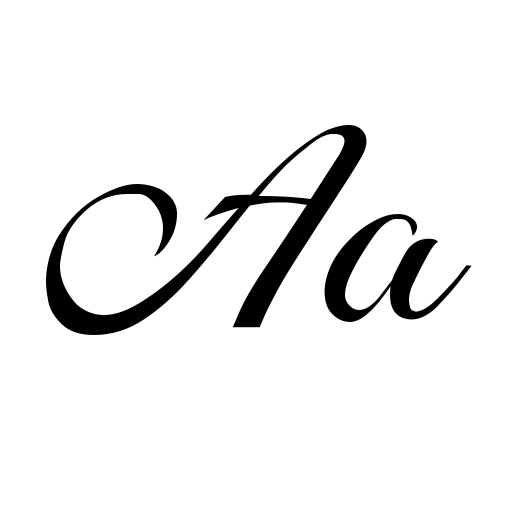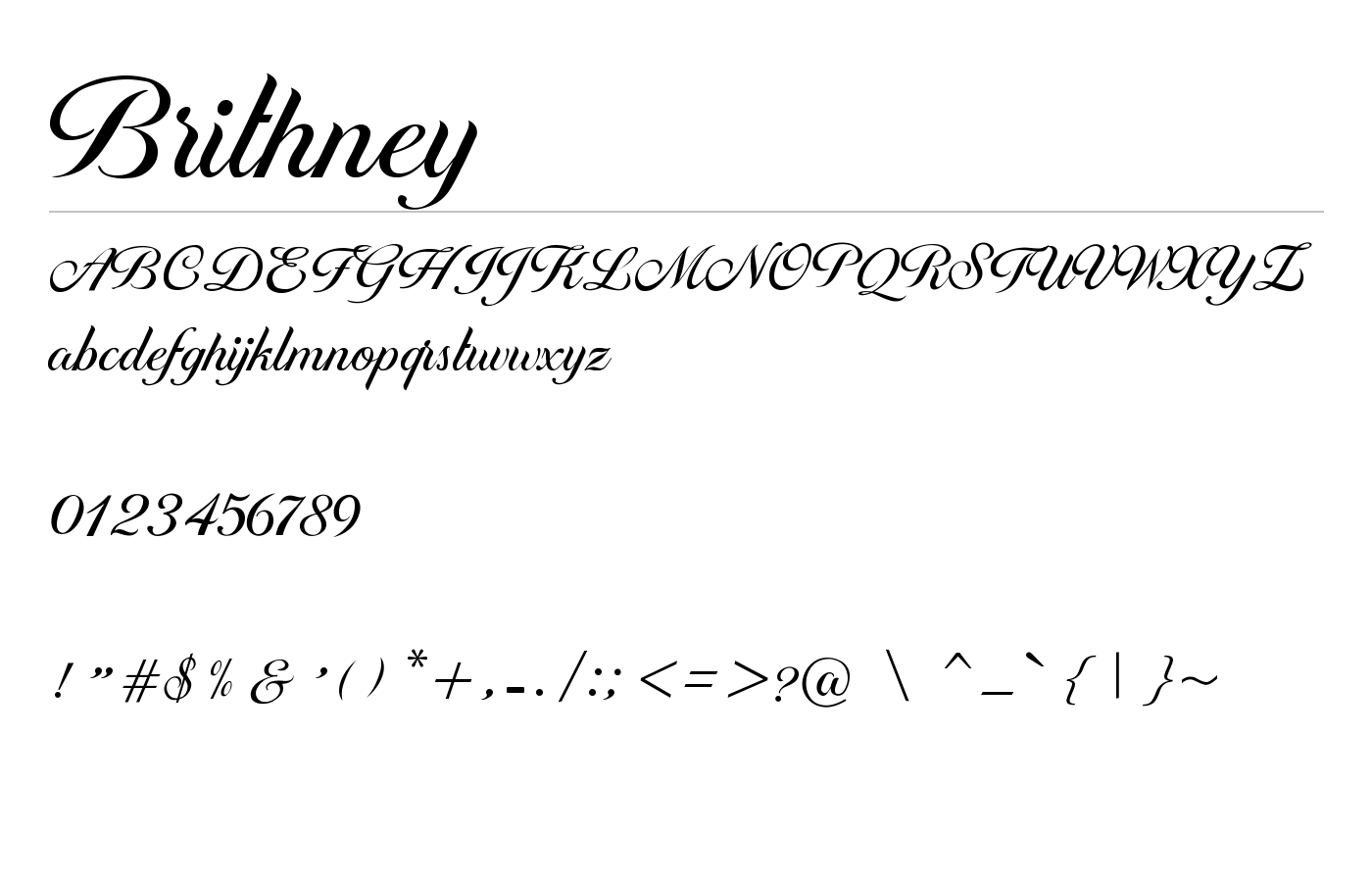
Brithney is an elegant script font characterized by its flowing, cursive letterforms with fine hairline strokes and moderate contrast, conveying a sense of sophistication and grace. Its slender, italic style with delicate swashes and smooth curves makes it ideal for luxury branding, wedding invitations, and stylish editorial use where a refined, classic look is desired. This font excels in headlines and decorative text, adding a timeless, graceful personality to any design.
Brithney Font